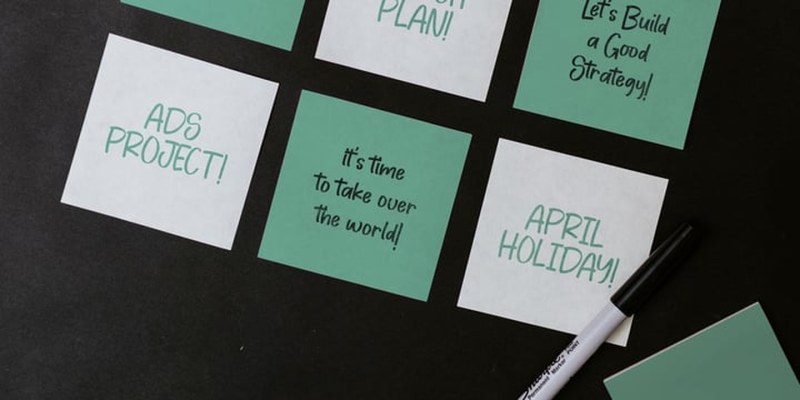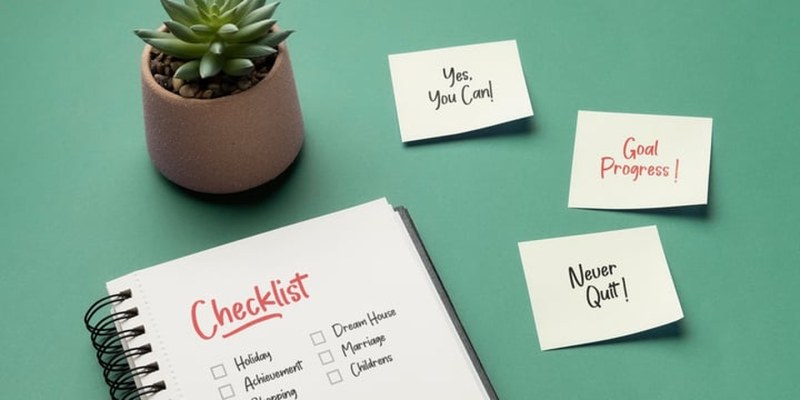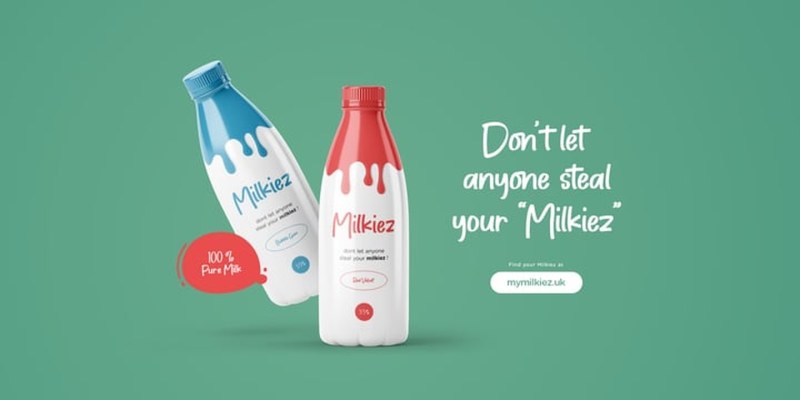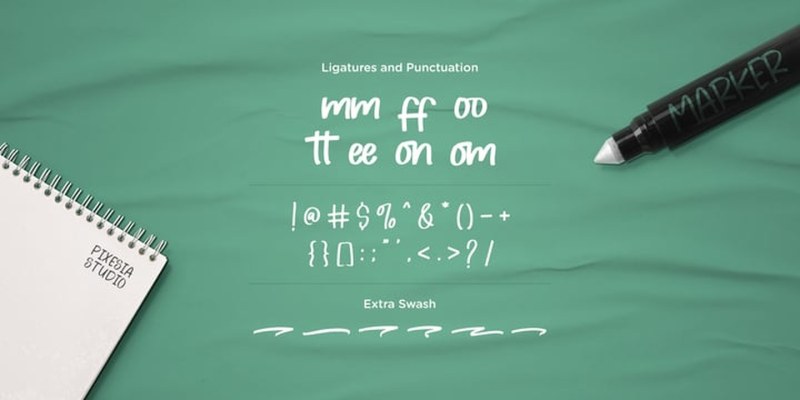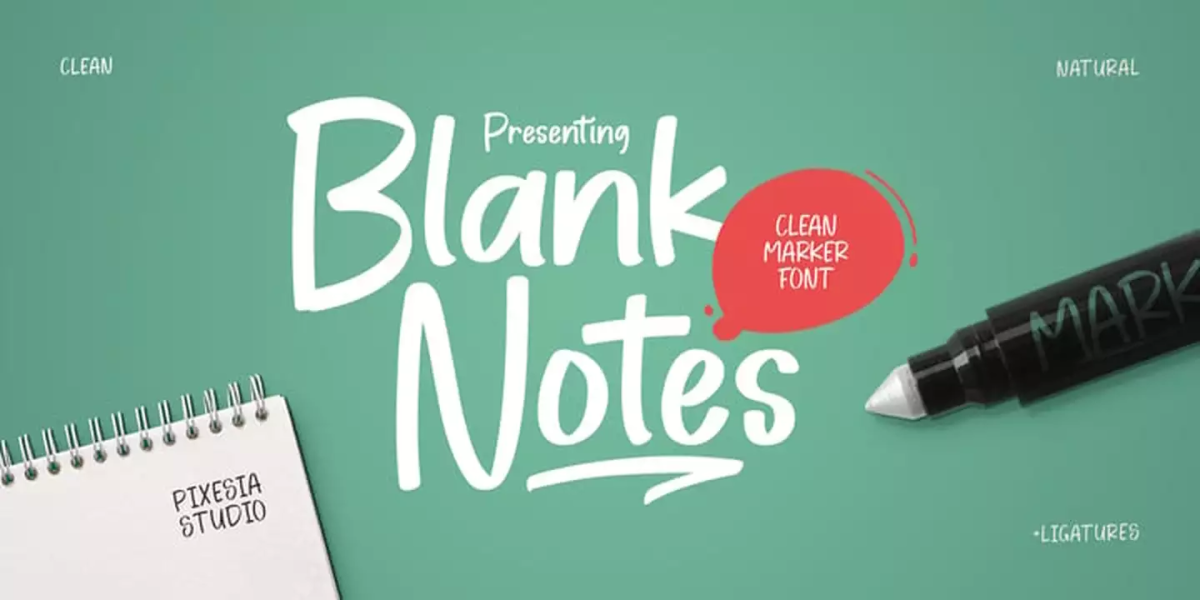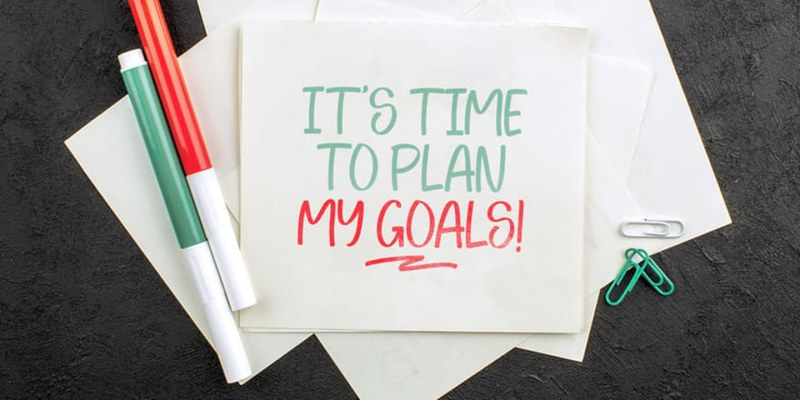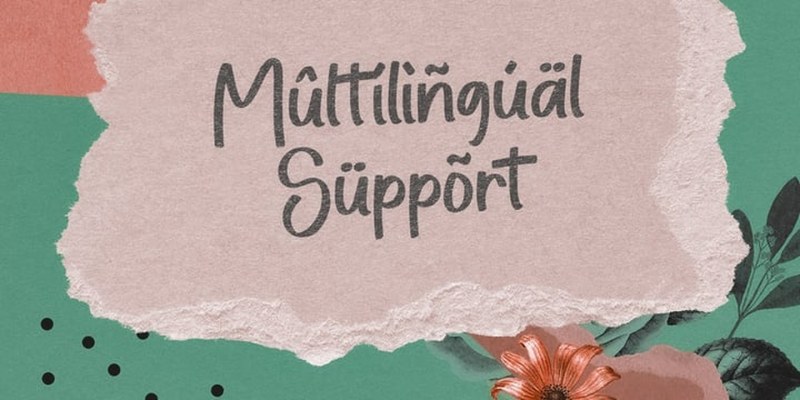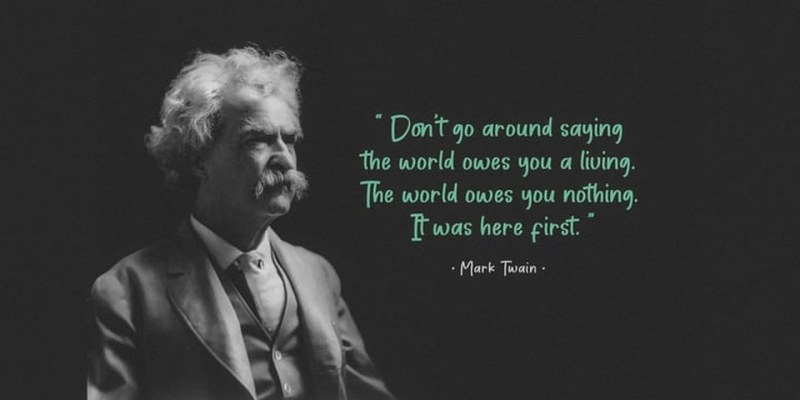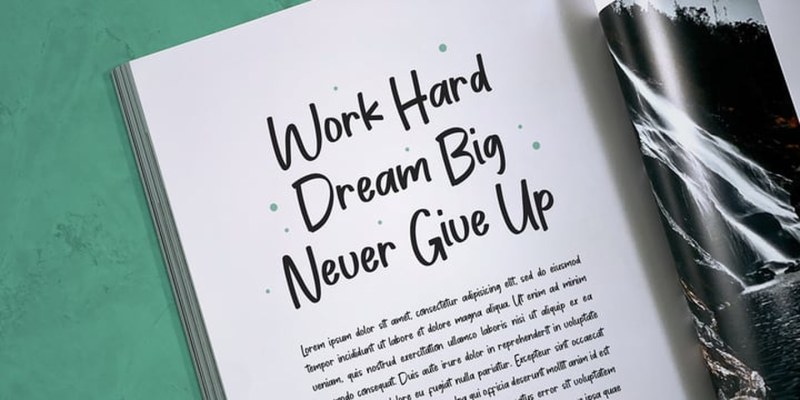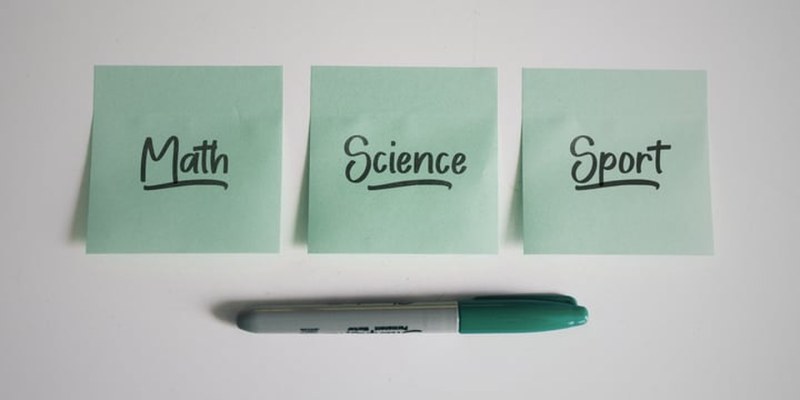
Blank Notes Font
Blank Notes is a bold and playful handwritten marker font. It’s created with a natural and unique style and has beautiful and neat characters. This font is perfect for digital notes, logotype, quotes design, book cover, t-shirt design, magazine titles, food menu, poster, kids project branding, social media, crafty DIY projects or anything. Add it to your most creative ideas and notice how it makes them come alive!
Where Blank Notes Font works best
Blank Notes Font brings a personal, handwritten warmth to invitations, menus and place cards.
Craft brands — coffee, cosmetics, bakery — use scripts like Blank Notes Font for signature-style logos and labels.
Pair Blank Notes Font with a plain sans for quotes, stories and Pinterest pins that feel handmade.
What is Blank Notes Font good for?
Blank Notes Font is a Script And Handwritten typeface tagged Bold, Branding, Clean, Creative. It works well for headlines, logos, posters, social media graphics and branding projects that need a distinctive script and handwritten look.